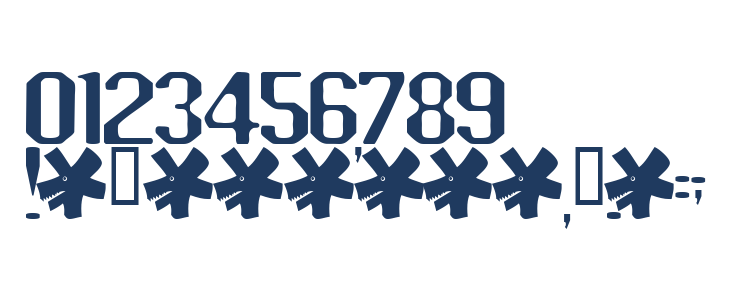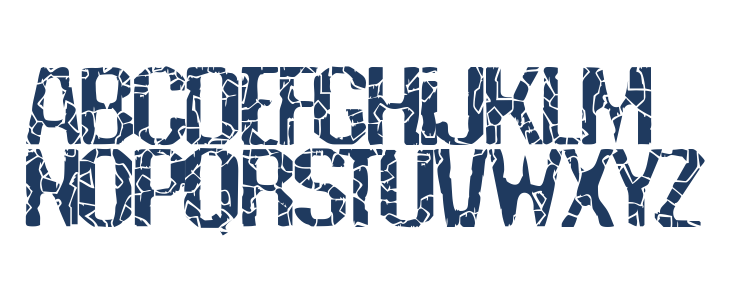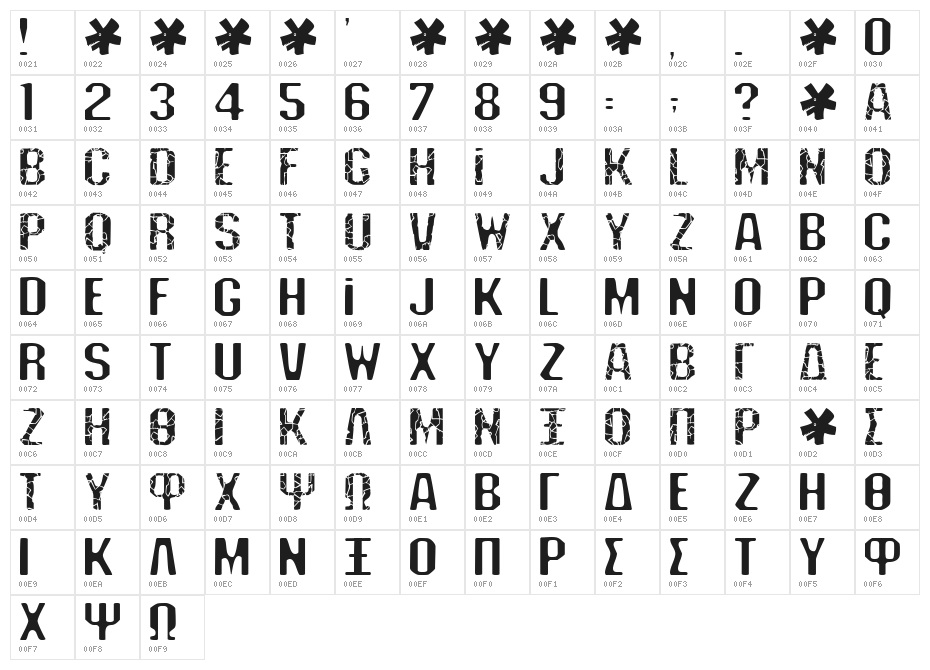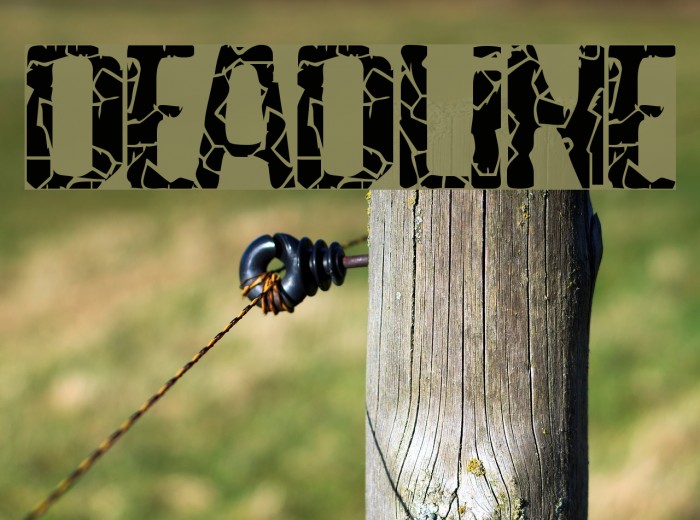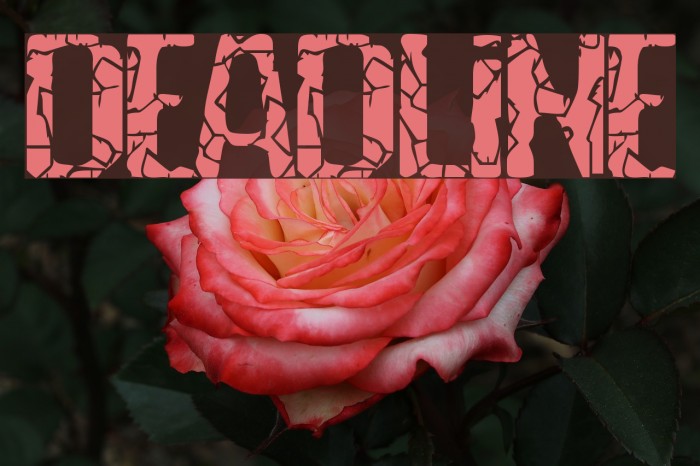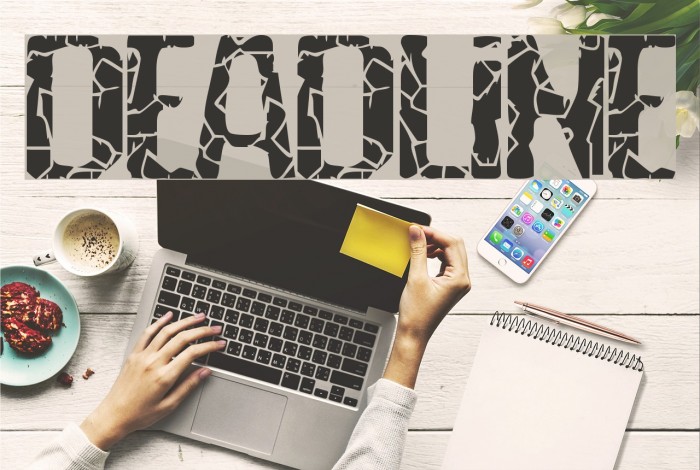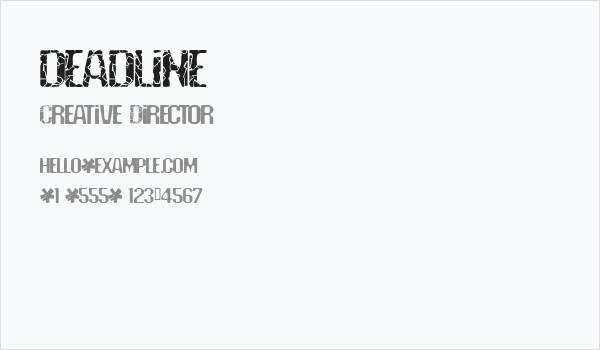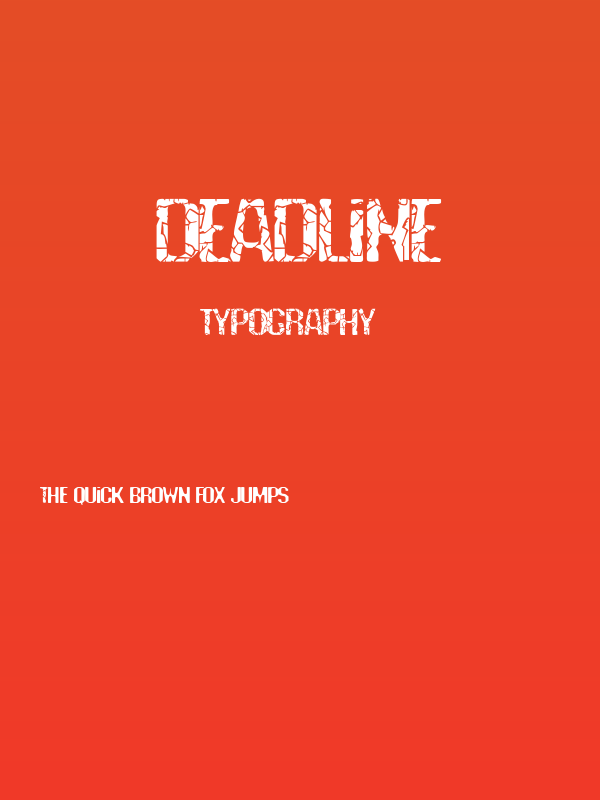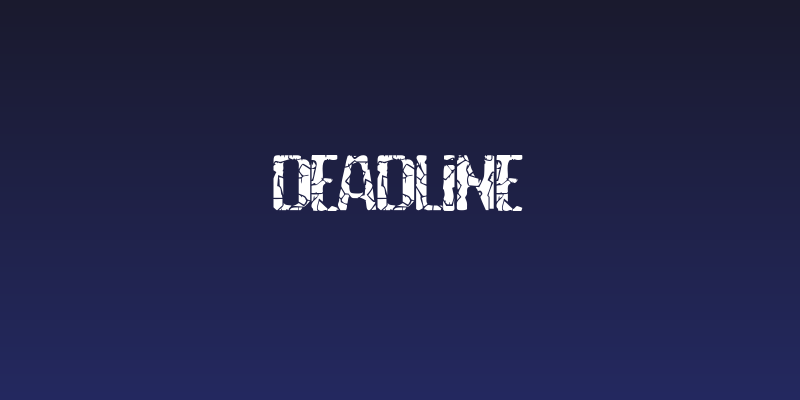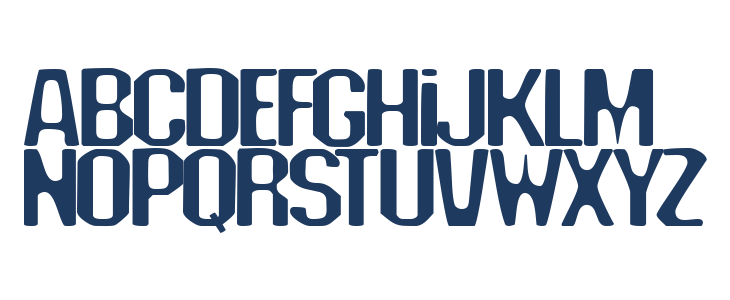
DEADLINE Font
DEADLINE Description
This font features a bold and striking design with a unique cracked texture that gives it a rugged and distressed appearance. The uppercase letters are particularly eye-catching, with a bold presence that makes them suitable for impactful headlines or titles. The lowercase letters maintain the same boldness, ensuring consistency throughout the text. The numbers and special characters are designed to match the overall aesthetic, making this font versatile for various creative projects. Its distinct style is perfect for designs that require a strong, edgy look.
Overall StyleModern, Edgy
Proposed ProjectsPerfect for posters, album covers, branding, and any project needing a bold, edgy aesthetic.